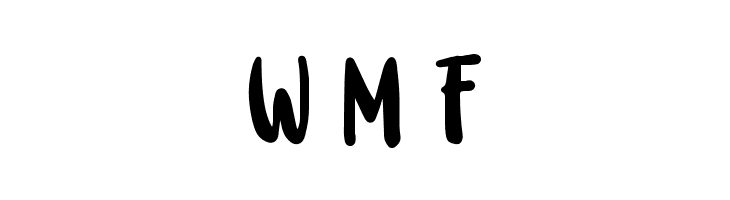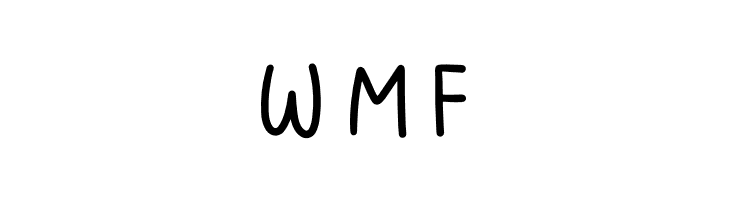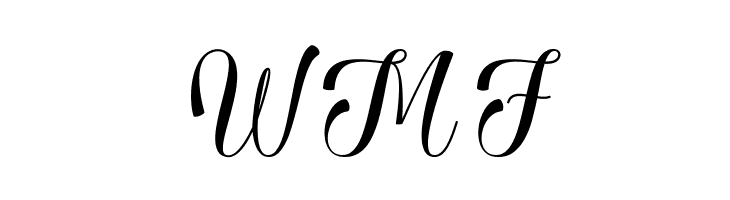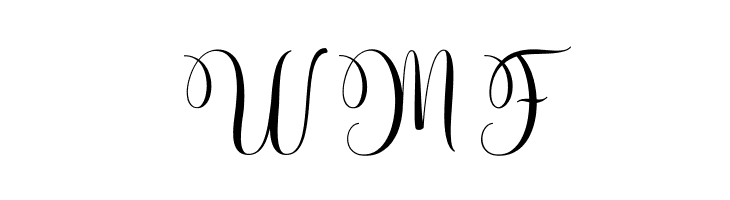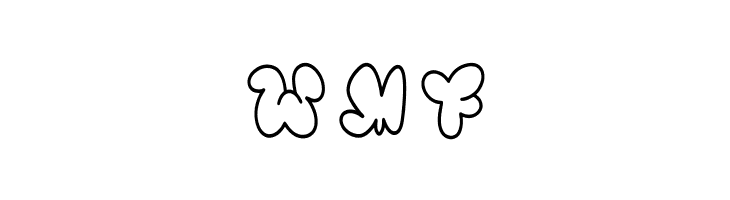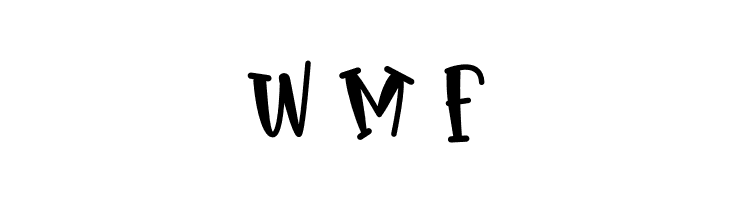
A bold, hand-drawn font with a playful and whimsical style.
A bold, hand-drawn font with a playful and energetic style.
A playful, hand-drawn font with bold, expressive characters and whimsical curves.
A playful handwritten font with a whimsical and informal style.
A graceful, calligraphic script font with elegant, flowing letters.
An elegant script font with flowing, interconnected letters and calligraphic style.
A playful, balloon-like font with bold, rounded characters.
A playful, handwritten font with smooth, rounded edges and a casual style.
A playful, bold handwritten font with rounded edges and varying stroke widths.
A graceful script font with flowing, interconnected letters.